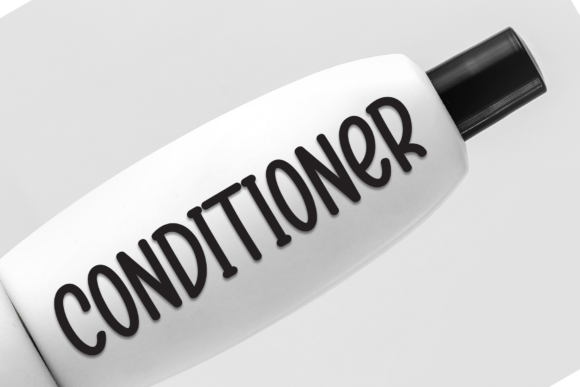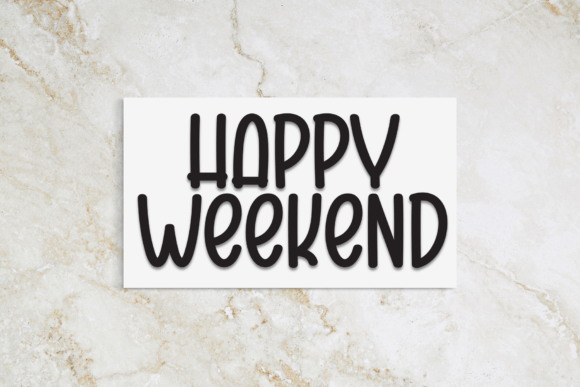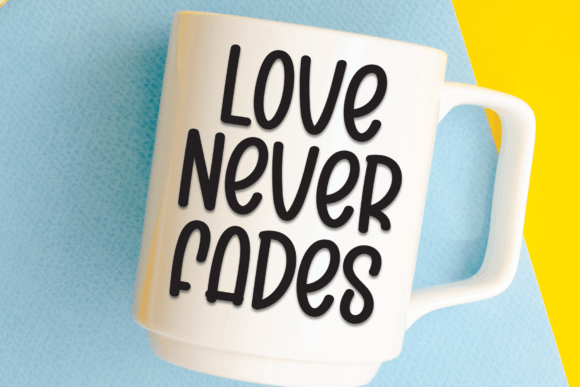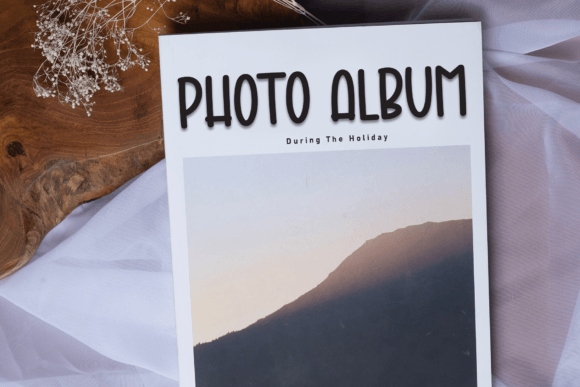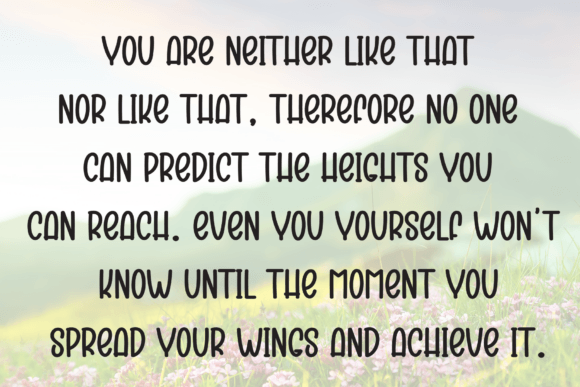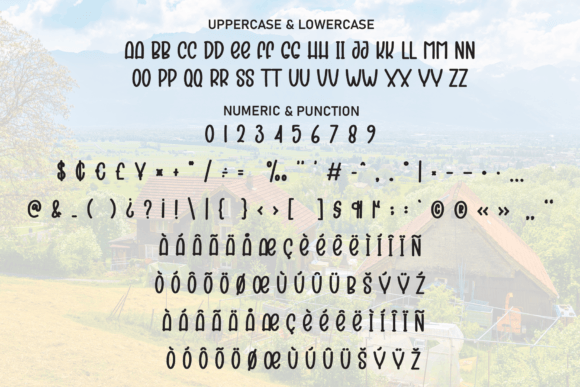
The Quest for the Perfect Countryside Font
I’ll never forget the time I was working on a project for a client’s rustic wedding invitation. I had the design concept all sorted out, but I was stuck on finding the perfect font to capture the essence of the countryside charm. I scoured the internet, tried out countless fonts, but nothing seemed quite right. That was until I stumbled upon the Beautiful Countrysid Font. It was like a breath of fresh air – playful, charming, and full of character. In this article, I’ll share my experience with this lovely font, its features, and how you can make the most of it in your designs.
An Honest Review of Beautiful Countrysid Font
- ✨ Unique and Playful Design: The Beautiful Countrysid Font has a distinctive, handmade feel that adds a warm, friendly touch to any project.
- ✅ Perfect for Invitations and Posters: Its rustic charm makes it ideal for wedding invitations, party posters, and other creative projects that require a personal touch.
- 💫 Easy to Read: Despite its playful curves, the font remains highly legible, making it perfect for both headings and body text.
While the Beautiful Countrysid Font is fantastic, there are a few things to keep in mind:
- 🤔 Limited Use in Formal Contexts: Due to its playful nature, this font might not be the best choice for formal documents or professional projects that require a more serious tone.
- ⚠️ Some Letters May Be a Bit Cramped: When using the font at smaller sizes, some letters may appear a bit cramped. It’s essential to adjust the tracking to ensure optimal readability.
Exploring OpenType Features
The Beautiful Countrysid Font comes with a range of OpenType features that allow you to customize your text. Here are a few features to explore:
- Stylistic Alternates: Switch between different letterforms to add visual interest to your text.
- Glyphs: Access additional characters, such as ligatures and ornaments, to enhance your design.
- Swashes: Add a touch of elegance with swash characters that can be used to connect letters.
The Story Behind Beautiful Countrysid Font
The Beautiful Countrysid Font was designed by a talented typographer who wanted to capture the essence of rural landscapes. Inspired by the rolling hills, green pastures, and quaint villages, this font embodies the warmth and charm of the countryside. The designer’s goal was to create a font that would evoke feelings of joy, simplicity, and connection to nature.